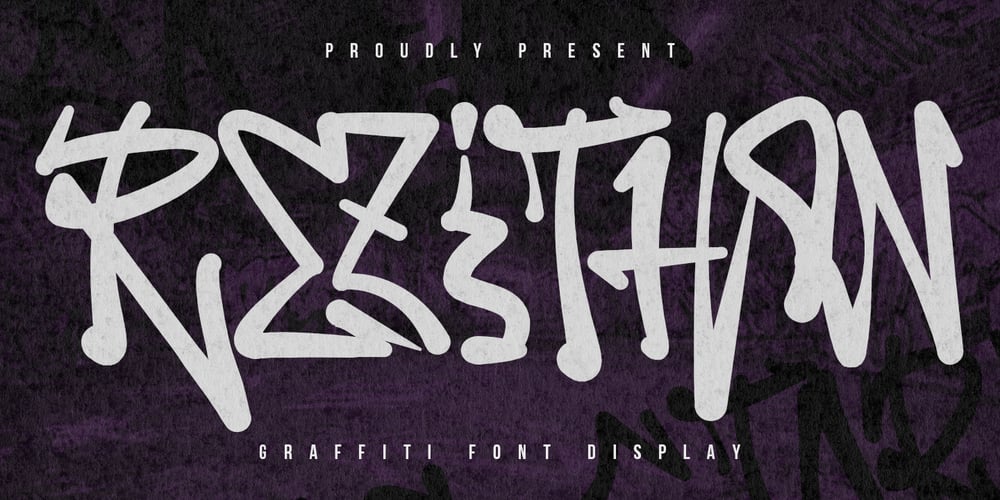
MC Rezithon Font Family was designed by Gilang Maulana and published by Maulana Creative. MC Rezithon contains 1 styles and family package options. Rezithon stylish graffiti display font. With vintage stroke, fun character with a ligatures and stylistic. To give you an extra creative work. Rezithon support multilingual language. This font is good for logo design, Social media, Movie Titles, Books Titles, a short text even a long text letter and good for your secondary text font with script or serif. Make a stunning work with Rezithon stylish graffiti display font.Cheers,Maulana Creative